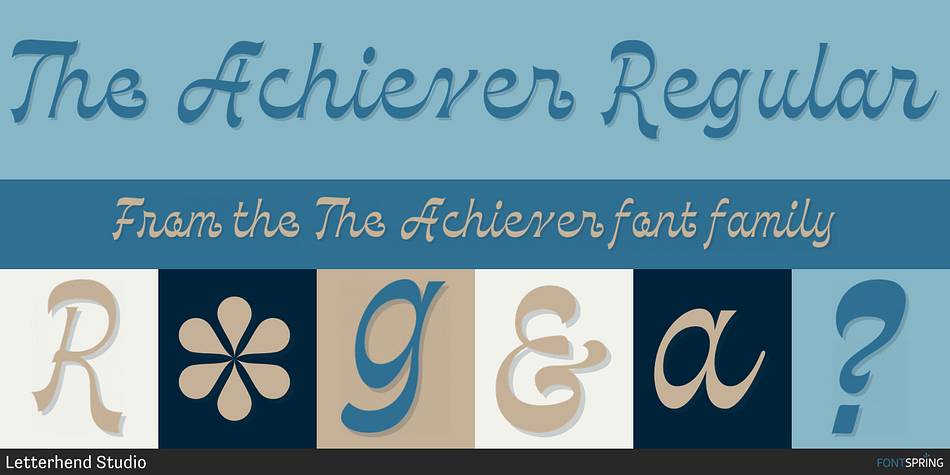
The Achiever Regular
Designed by Hendry Juanda, The Achiever is a brush display and script font published by Letterhend Studio.
Introducing, The Achiever- a unique display script with reverse contrast. The unusual reverse contrast make this typeface one of a kind. This type of font perfectly made to be applied especially in logo, and the other various formal forms such as invitations, labels, logos, magazines, books, greeting / wedding cards, packaging, fashion, make up, stationery, novels, labels or any type of advertising purpose.
- alternates and ligatures